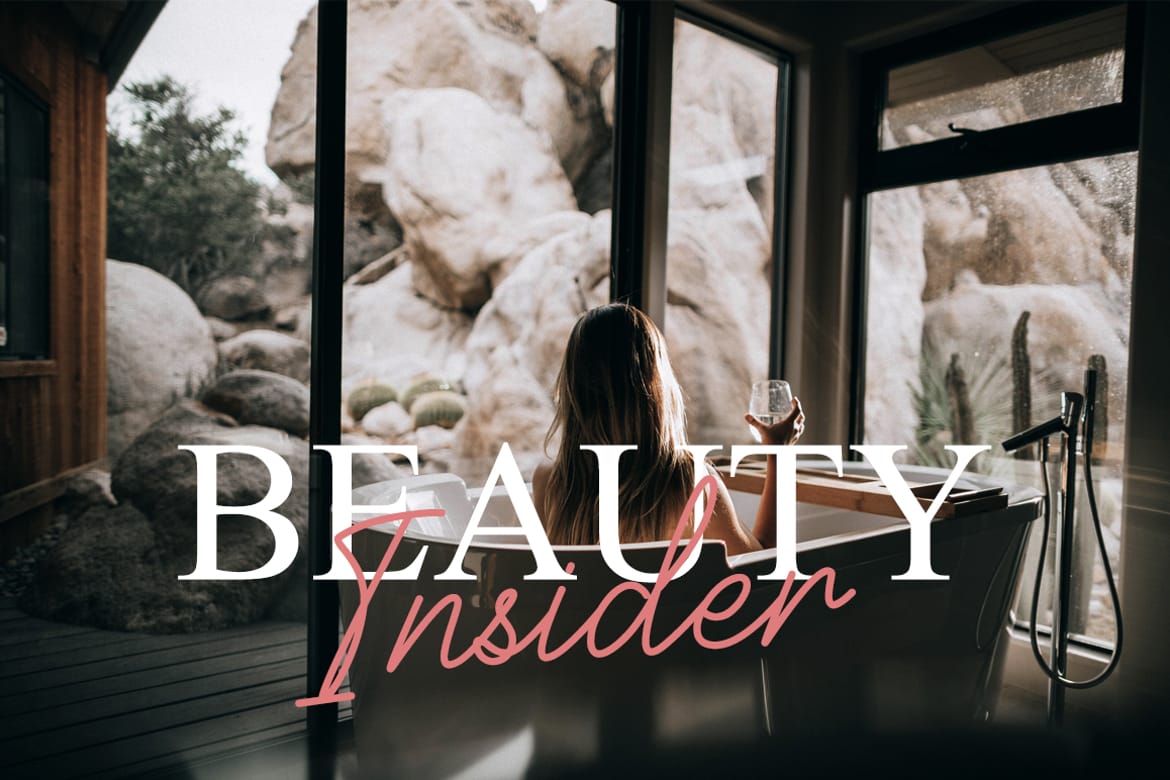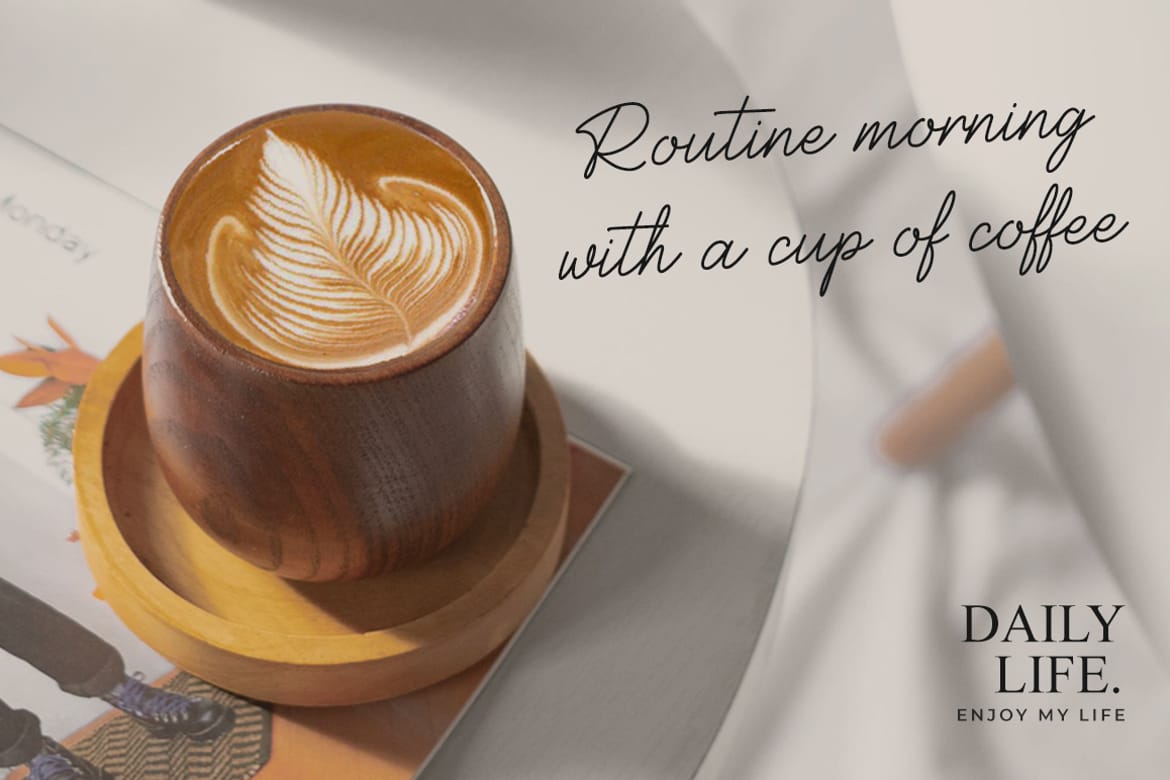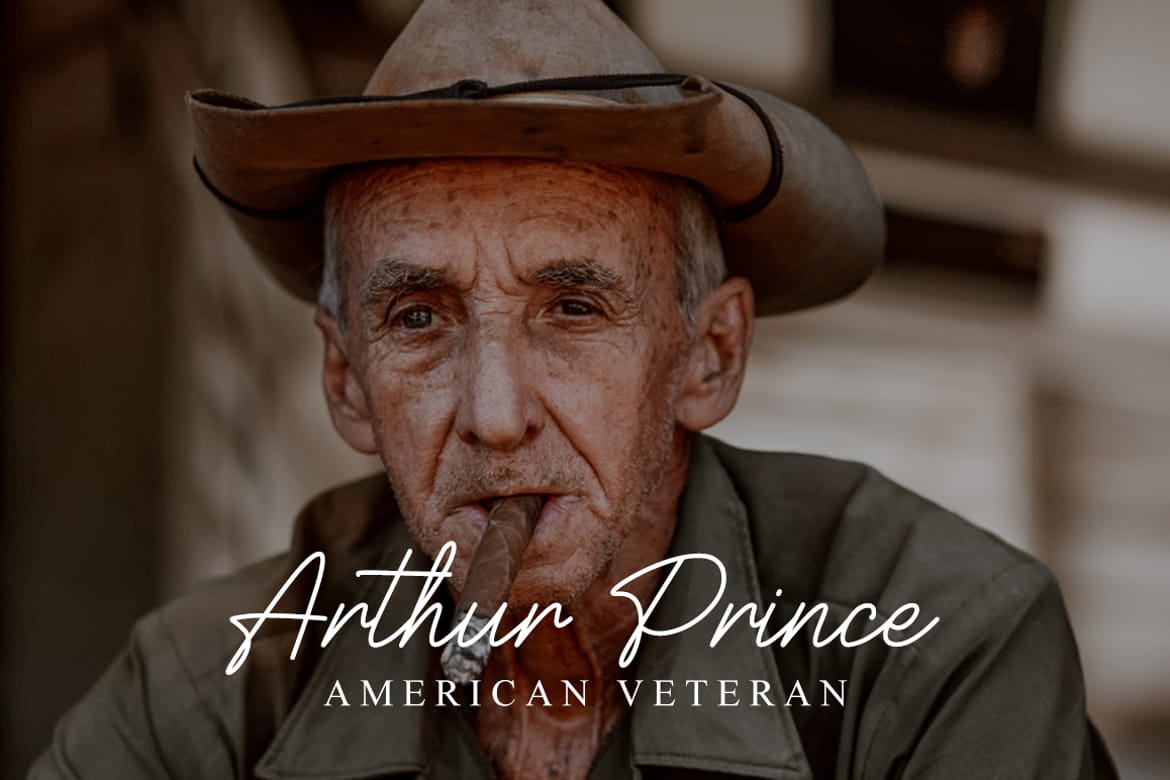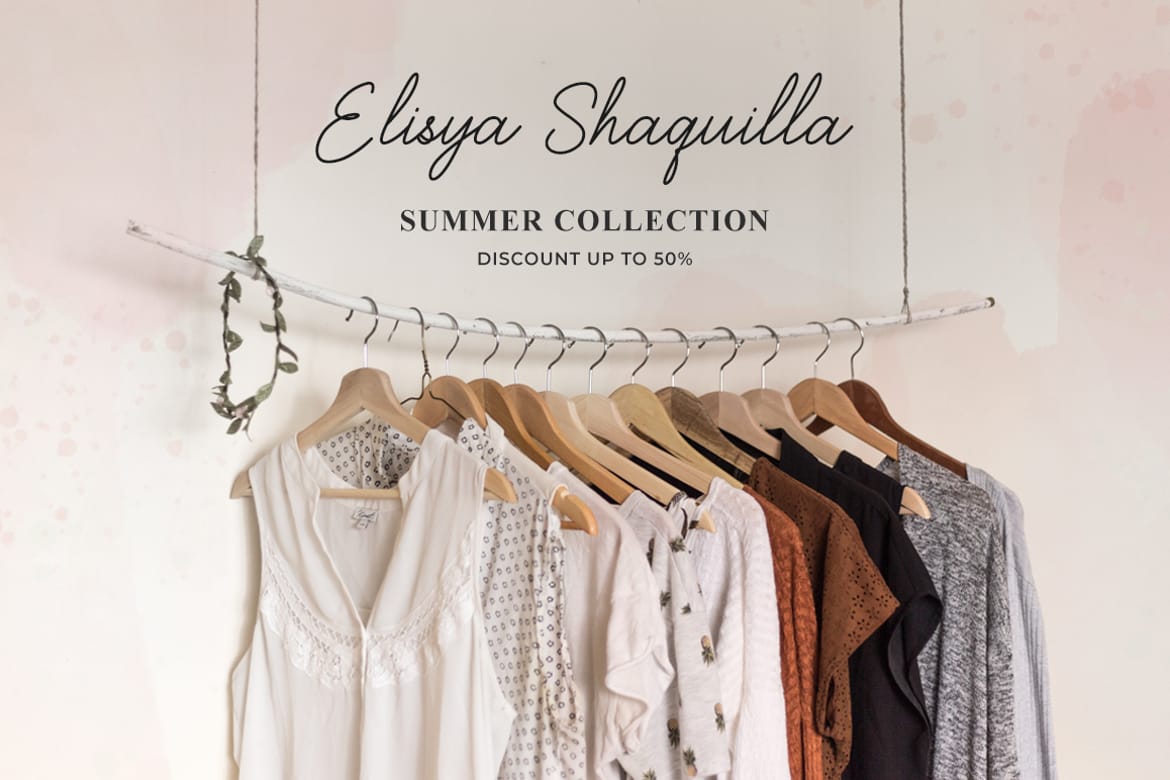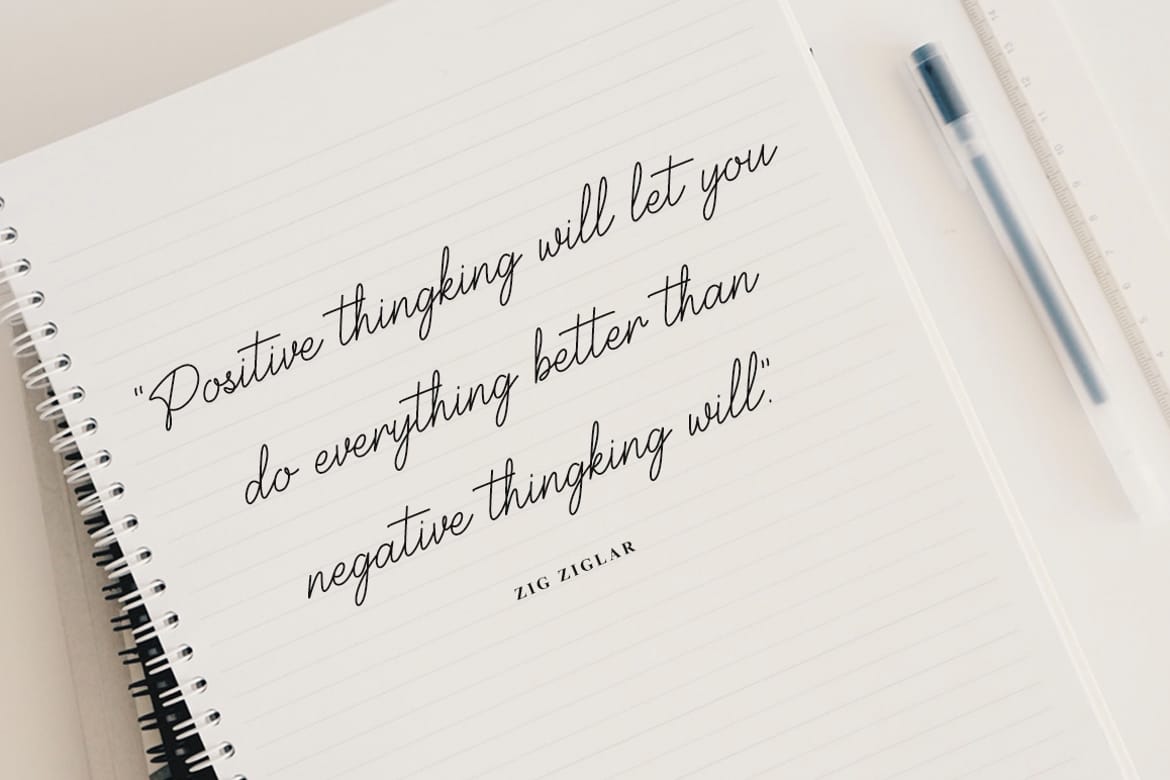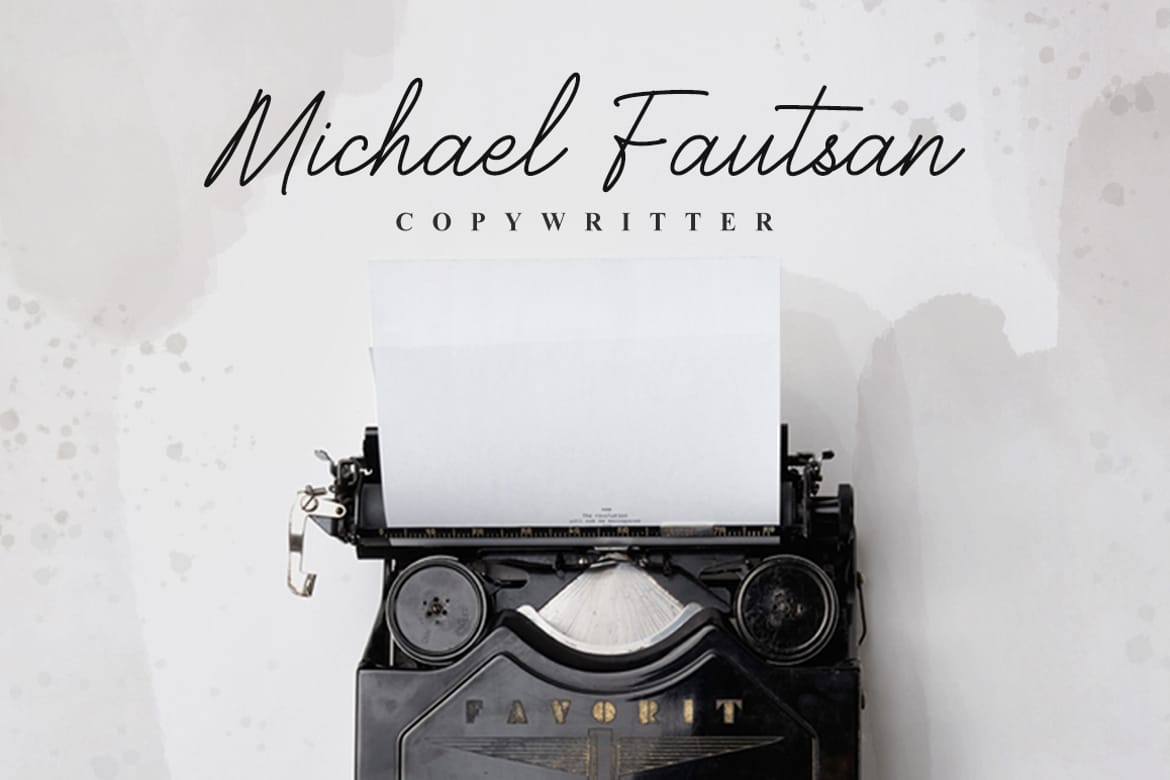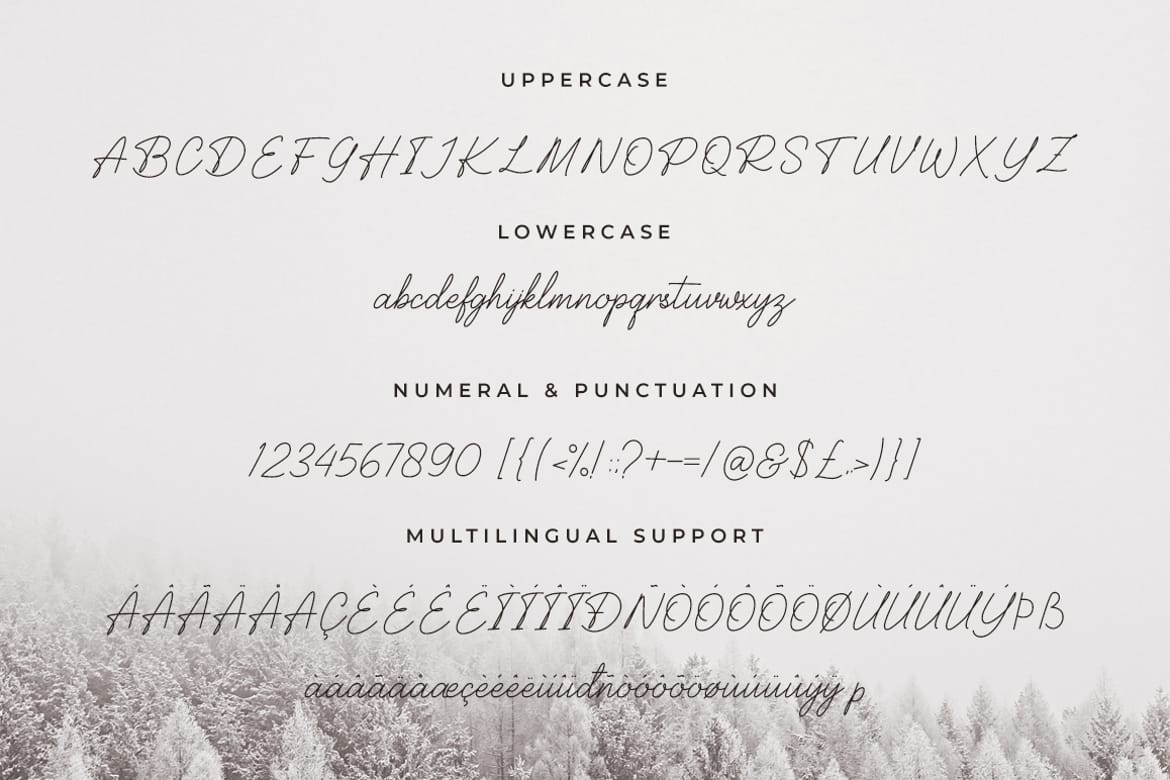
Balcony is a stylish and elegant signature font designed to bring a personal touch to your creative projects. With its smooth, handwritten strokes and modern feel, Balcony is perfect for branding, logos, wedding invitations, business cards, social media graphics, and stylish packaging.